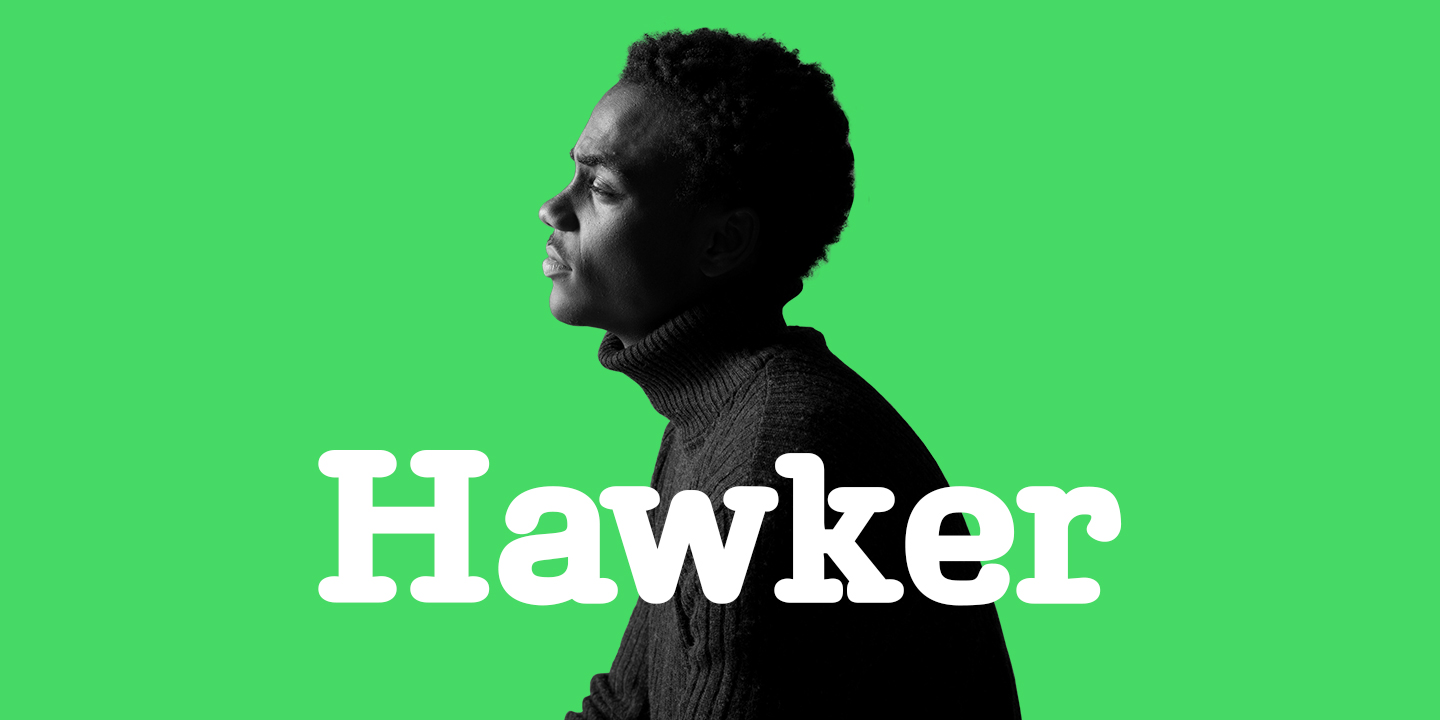
Hawker Display Font is perfect for various design applications including street food vendor branding, urban marketplace signage, food truck graphics, bustling market advertising, outdoor vendor displays, commercial street signage, pop-up restaurant materials, and vibrant food festival promotions that require street-smart sophistication and commercial display excellence.
What makes Hawker Display Font truly exciting is its authentic embodiment of street vendor energy and commercial display prowess that captures the entrepreneurial spirit and eye-catching appeal of skilled hawkers who transform busy streets into vibrant marketplaces through compelling visual communication and irresistible product presentation. This dynamic typeface features bold, attention-grabbing letterforms with commercial-grade impact that evoke images of bustling food markets, colorful vendor stalls, and the competitive energy that drives successful street commerce and outdoor retail environments. The font's commercial character reflects the marketing savvy and visual appeal required for successful street vending, making it perfect for brands that want to communicate street credibility, commercial success, and the vibrant energy that defines successful outdoor retail and food service operations. Its display appearance creates immediate associations with street commerce and vendor expertise.
The Hawker Display Font family includes multiple weights and commercial variations designed to enhance street-level communication. The collection features Regular, Medium, Bold, and Black weights, each maintaining the font's characteristic hawker appeal while offering different levels of commercial presence. The family also includes condensed versions for space-efficient displays, eye-catching alternates that enhance commercial significance, and stylistic sets that create dynamic text arrangements reflecting the energy of street markets. Additional features include contextual ligatures and vendor sets that create compelling, attention-grabbing arrangements perfect for commercial and retail applications.
Commercial and retail professionals consistently choose Hawker Display Font Free Download for projects requiring authentic street vendor character and commercial credibility. The font's entrepreneurial nature makes it particularly effective for food service businesses, outdoor retailers, and market vendors targeting customers who appreciate street-smart commerce and authentic vendor experiences. Its excellent visibility and commercial impact ensure effective communication while maintaining the distinctive hawker character that conveys street credibility and commercial success.
The advanced OpenType capabilities of Hawker Display Font include contextual alternates, stylistic sets, and comprehensive character support that accommodates commercial terminology and vendor expressions while preserving the font's authentic street character. The technical precision ensures consistent commercial appearance across different retail applications and vendor platforms.
For creative professionals seeking a typeface that embodies genuine street commerce heritage and hawker sophistication, Hawker Display Font offers unparalleled commercial appeal and vendor elegance. Its ability to convey street authority while maintaining functional communication makes it invaluable for food service businesses, retail vendors, and commercial enterprises. The font's distinctive hawker character ensures memorable commercial impact across all applications, creating powerful visual identity systems that celebrate the entrepreneurial spirit of street commerce and the skilled salesmanship that transforms ordinary vendors into successful commercial enterprises through compelling visual presentation and street-smart marketing.